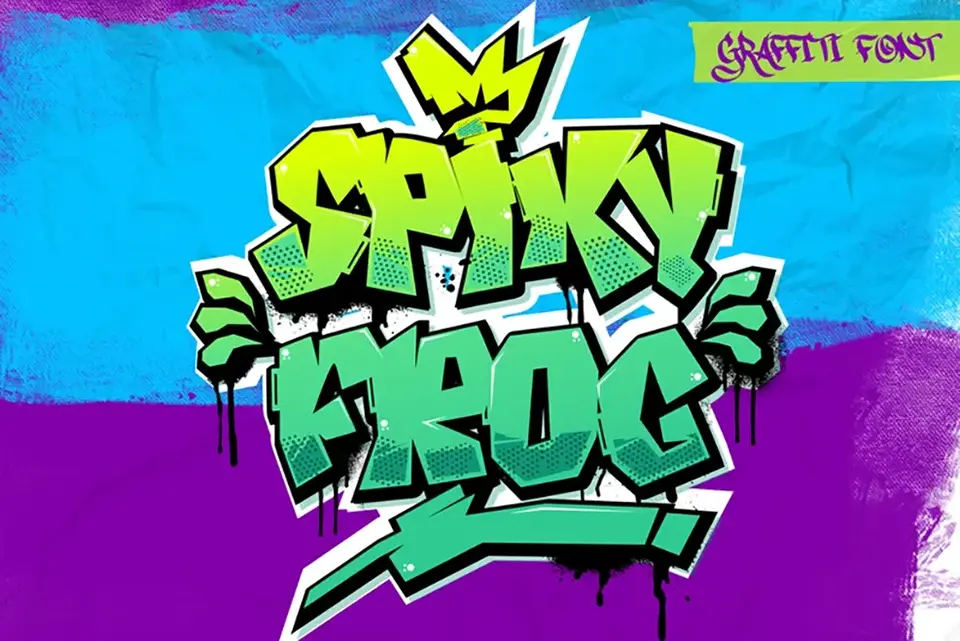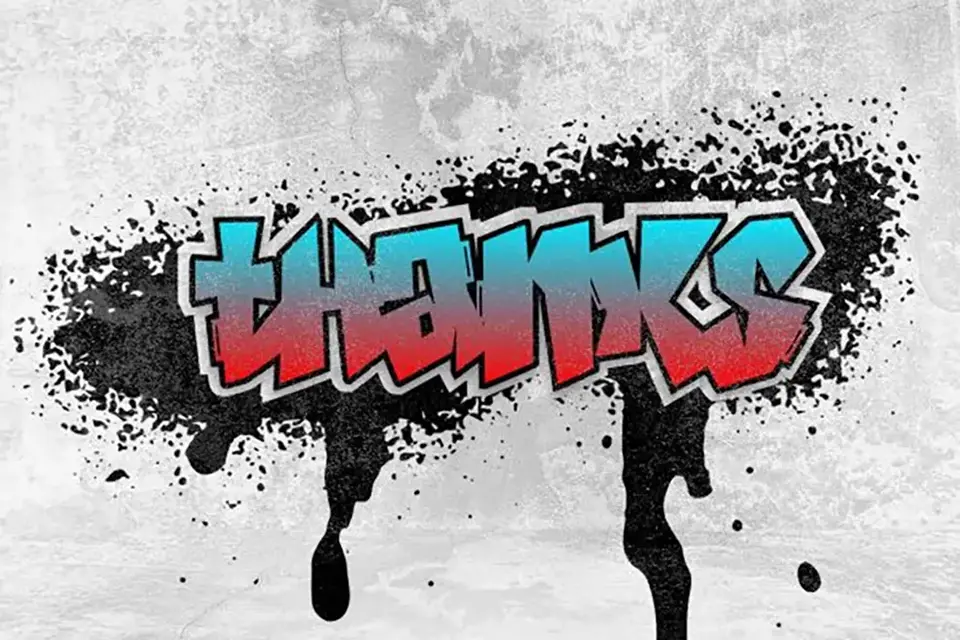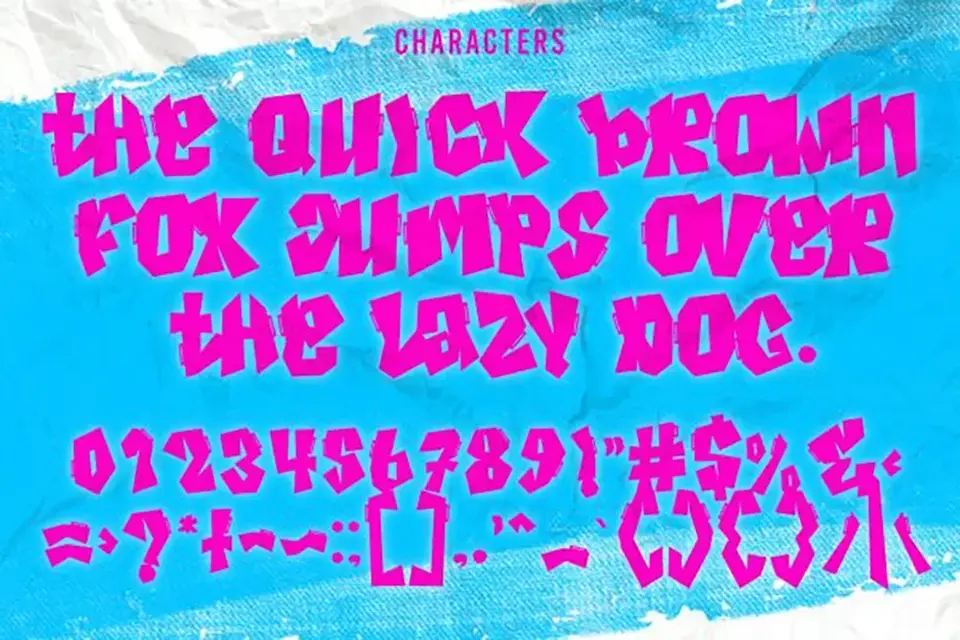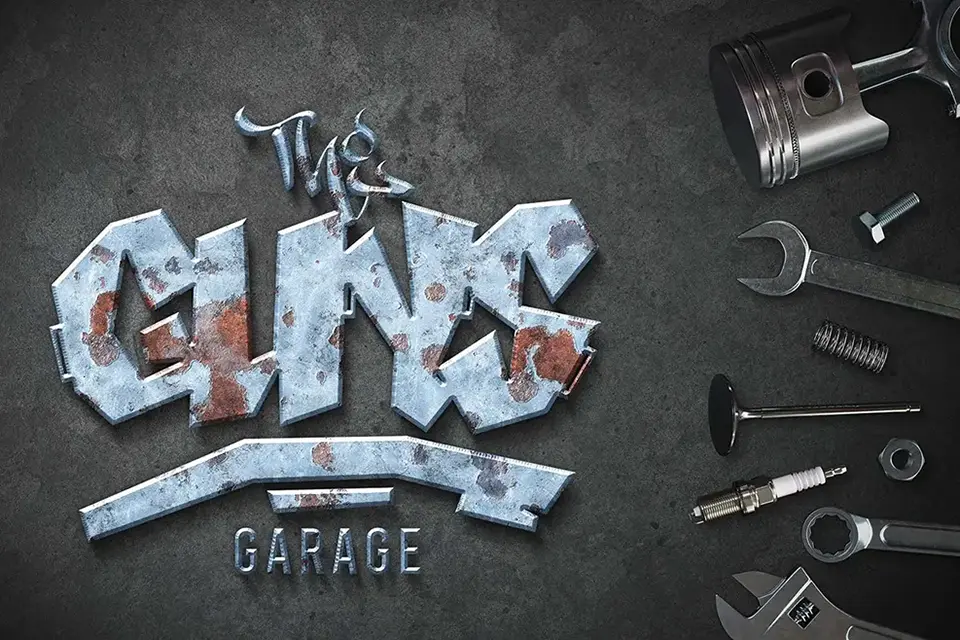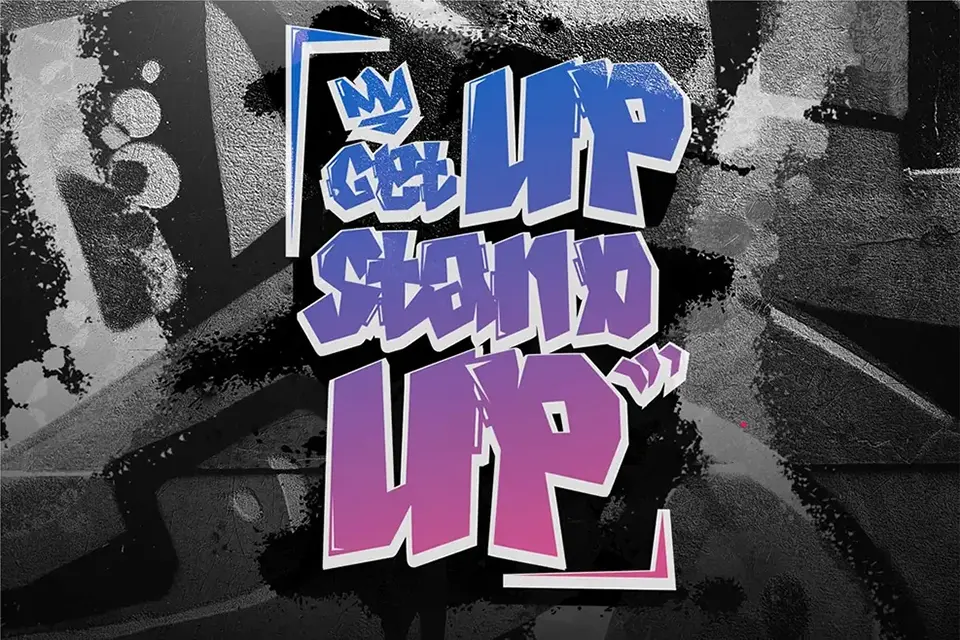
Spiky Frog Graffiti Font
Spiky Frog Graffiti leans into chunky, irregular letterforms with pointed terminals and tight structure, so text looks dense and aggressive on the page. The weight is heavy, the outlines feel hand-sprayed rather than smooth, and spacing runs compact, giving you that crowded wall-tag impression even in short words. It works well for music covers, streetwear drops, urban event posters, and social graphics where you only need a few punchy words, not long paragraphs. For anything that demands quiet, highly legible reading—like body copy, formal documents, or minimalist UI—it quickly feels too loud and busy, so it’s better kept as a strong accent instead.
graffiti-style poster titles
streetwear or music cover artwork
urban branding lockups and stickers
social media banners with short phrases
long paragraphs or detailed editorial layouts
formal corporate or luxury branding systems
small UI text, captions, or subtitles
minimalist layouts that need subtle typography
Perfect for branding, gaming, and music, with a artistic and decorative style.